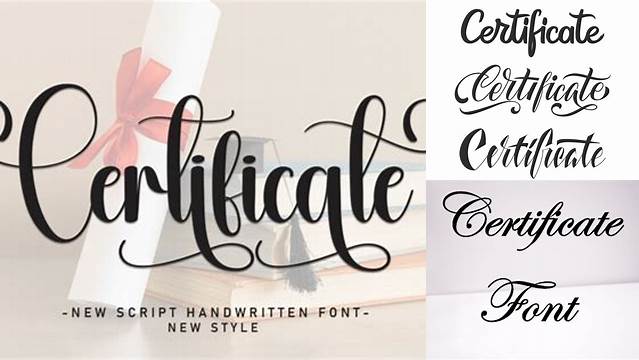
Free Cursive Fonts For Certificates: Download Guide
Hey guys, are you looking to add a touch of elegance and personalization to your certificates? Well, you're in the right place! We're diving deep into the world of cursive fonts perfect for certificates, with a focus on how to find them for free download. Certificates are more than just pieces of paper; they're symbols of achievement, milestones reached, and memories made. The font you choose plays a HUGE role in conveying the right message, whether it's for a graduation, a professional certification, or an award of appreciation. We'll cover where you can find these beautiful fonts, how to download and install them, and tips on designing certificates that look professional and eye-catching. So, let’s get started!
Why Choose Cursive Fonts for Certificates?
Choosing the right font can truly transform the look and feel of your certificate. Cursive fonts, with their flowing, connected letters, bring a sense of sophistication, formality, and personality. They're visually appealing and can make a certificate feel more special and noteworthy. Unlike plain, simple fonts, a cursive font adds a touch of class. It's like the difference between a handwritten note and a typed email – one feels more personal and deliberate. Cursive fonts, like a well-crafted signature, communicate a sense of authenticity and attention to detail. This can be especially beneficial when you're presenting certificates for significant achievements, such as academic honors, professional accomplishments, or recognition of long-term service. The goal is to make that certificate something the recipient will want to treasure. Using a cursive font helps to establish a positive emotional connection with the certificate. It elevates the value of the certificate in the eyes of the recipient and makes the recognition feel more meaningful. Also, cursive fonts can set your certificate apart from the crowd. If everyone else is using standard fonts, your choice to go with a cursive font will make your certificate immediately stand out. This is especially useful for awards ceremonies or when presenting certificates in a professional context. Furthermore, cursive fonts are versatile. They can range from the more formal and elegant to the playful and artistic. This means you can find a cursive font that matches the tone and style of your certificate, whether it's for a serious professional achievement or a fun and creative award. Ultimately, the selection of a cursive font will speak volumes about your commitment to quality and presentation.